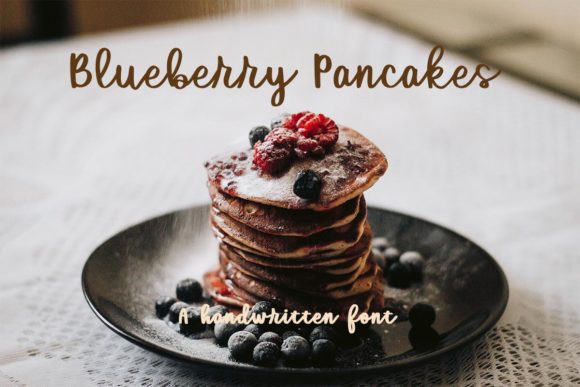
Introducing Blueberry Pancakes Font, your ticket to creating stunning and captivating designs! Crafted by the talented Ira Natasha, this font belongs to the exquisite script family, offering a unique blend of elegance and modernity. Get ready to be mesmerized by its clean lines and undeniable charm!
With Blueberry Pancakes Font, your creativity knows no bounds. Its classy calligraphic influences effortlessly merge with a fresh and contemporary touch, making it the perfect choice for a wide range of projects. Whether you're designing a wedding invitation, branding materials, or simply adding a touch of sophistication to your social media posts, this font has got you covered.
Embrace the beauty of Blueberry Pancakes Font and elevate your designs to new heights! Its impeccable design and attention to detail will leave both you and your audience breathless. Every letter is crafted with precision, ensuring a flawless and visually pleasing result.
But it's not just about aesthetics – Blueberry Pancakes Font also offers exceptional functionality. Its versatility allows you to experiment with various styles and layouts, giving you the freedom to express your unique vision. Let your creativity run wild and watch as your designs come to life!
Don't settle for ordinary when you can have extraordinary. Blueberry Pancakes Font is here to elevate your designs and set them apart from the crowd. It's time to stand out, make a statement, and leave your mark in the world of design.